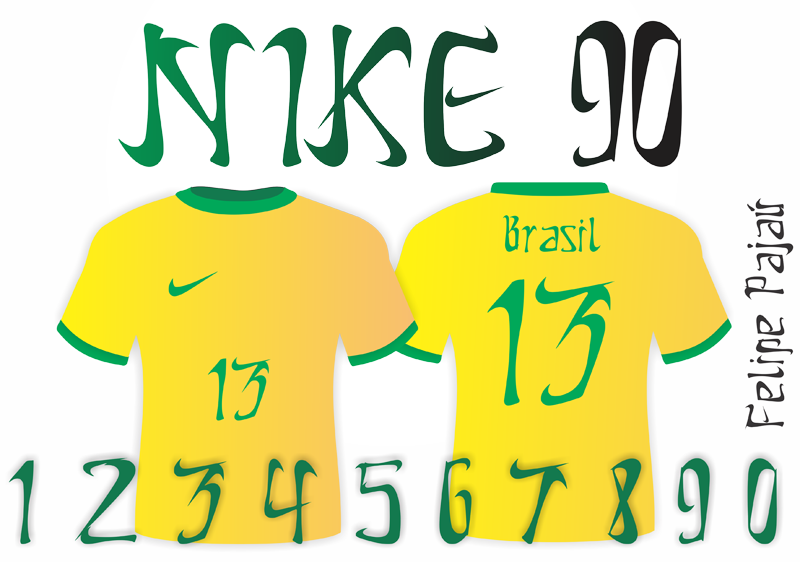
Font name: | Nike 90 |
Author: | Felipe Pajau |
Note by Felipe Pajau | |
Nike 90 is a Font Created for Nike Inc. This idea was think about the ancient way of writing in Mesopotamia, Cuneiform writing. This was worked to stamp Nike clothes! |